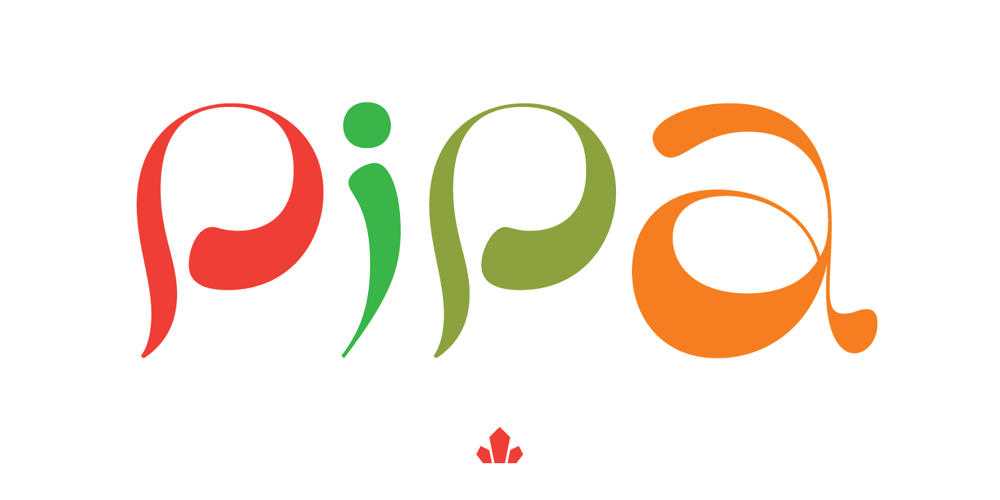
Pipa Font Family was designed by Patrick Griffin, Kevin Allan King and published by Canada Type. Pipa contains 1 styles and family package options. Originally made for a health food store chain we cannot name, Pipa is the embodiment of organic display typography. Although it draws inspiration from some cold type ideas, like the uncredited Atlantis from VGC and a couple of older photo-lettering faces, its overall expression is right in line with what has become today’s vernacular in integrity organic display packaging. Pipa’s construct approaches the thick-and-thin idea from a rarely used perspective, where the flow in form contrast naturally seeps out from within each stroke, while minimizing the amount of strokes helps the totality of the setting come positively alive. This is bead and lava lamp psychedelia for the 21st century. Pipa comes with plenty of alternates, including some very cool unicase variations, and extended Latin language support.